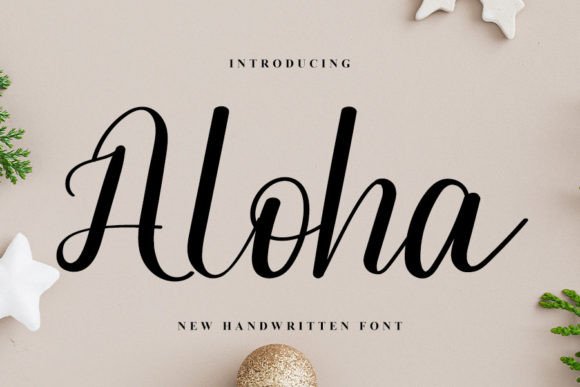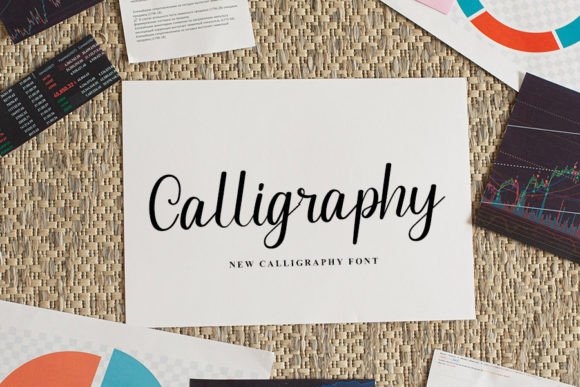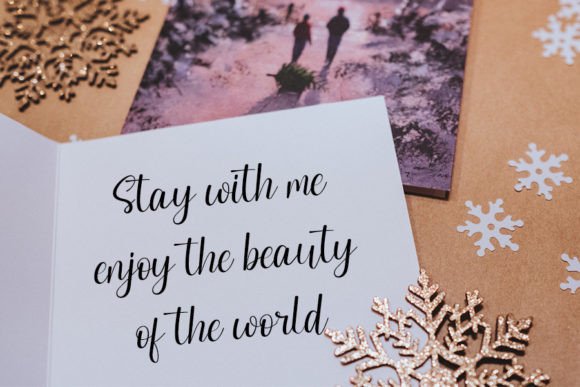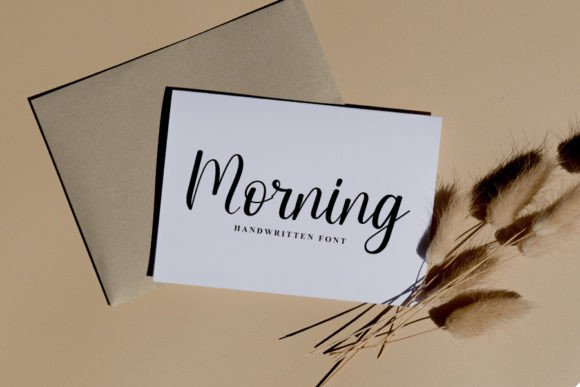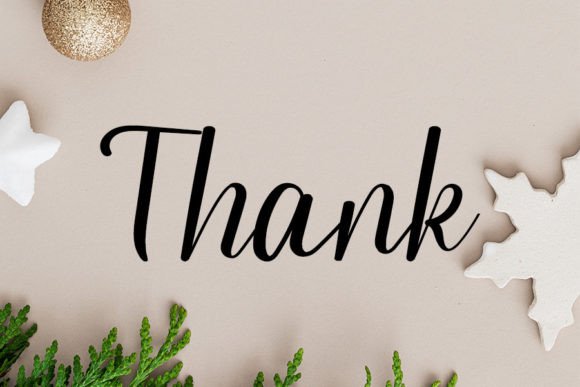
About Aloha Font
“Aloha” is a meticulously crafted and elegant handwritten font celebrated for its neat and refined touch. It stands as an excellent choice for a wide array of creative projects and is known for its distinct and timeless style. Designers can embrace this font to create captivating and visually striking designs.
The font’s versatility is its strong suit, making it suitable for a diverse range of design applications. Whether you’re engaged in branding, logo design, graphic design, or typography, “Aloha” offers a sophisticated and adaptable option.
In the realm of branding and visual identity, “Aloha” can play a pivotal role in establishing a polished and distinguished image for businesses and brands. Its elegant handwritten appearance imparts an air of sophistication and timelessness, making it an excellent choice for those seeking to craft a unique and memorable brand identity.
When employed in printed materials such as posters, flyers, and promotional collateral, “Aloha” bestows a sense of grace and uniqueness. Its handwritten script exudes authenticity and artistic finesse, making it an excellent choice for capturing attention and effectively conveying messages.
For personal projects such as invitations, greeting cards, and stationery, “Aloha” can add an extra layer of elegance and charm to your messages. It brings a sense of timeless beauty to your words, making it suitable for a variety of special occasions and personal expressions.
In essence, “Aloha” is more than just a font; it’s a creative instrument that introduces a neat and sophisticated ambiance to your projects. Its adaptability and timeless aesthetics make it a valuable asset for designers and individuals seeking to infuse their work with elegance and beauty, thereby enhancing the overall impact of their creative endeavors.